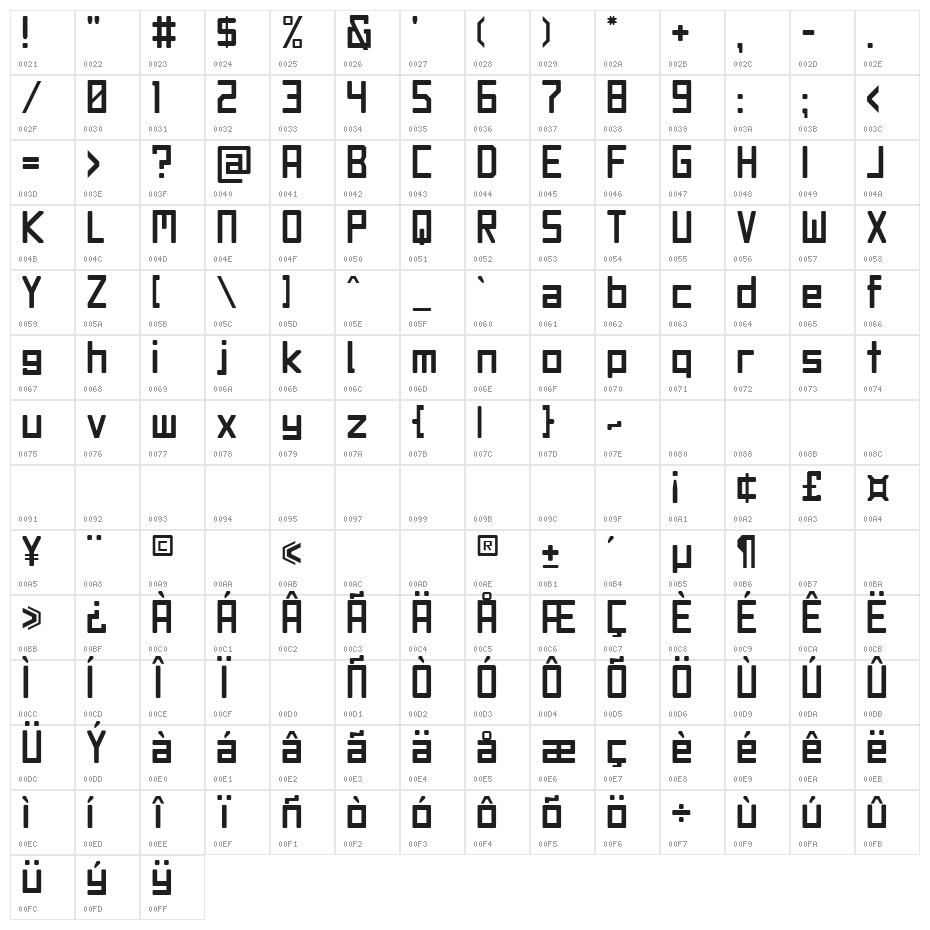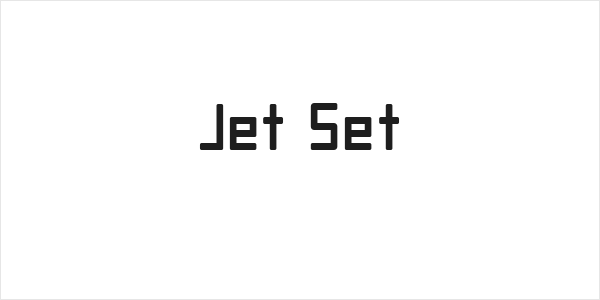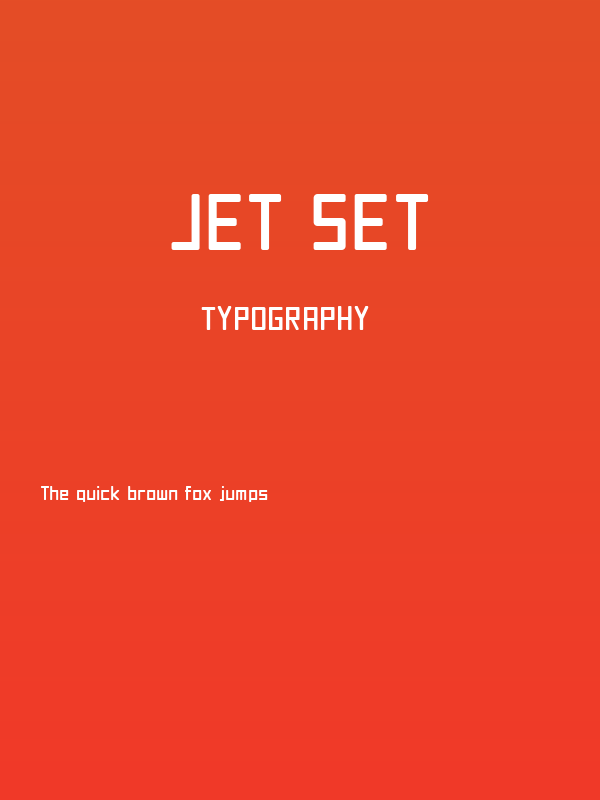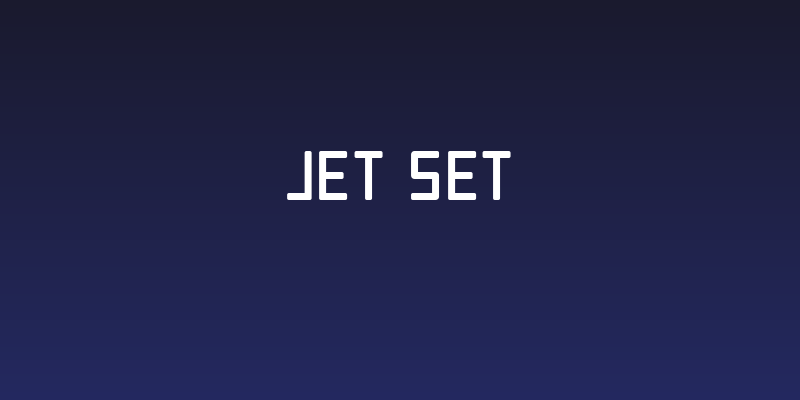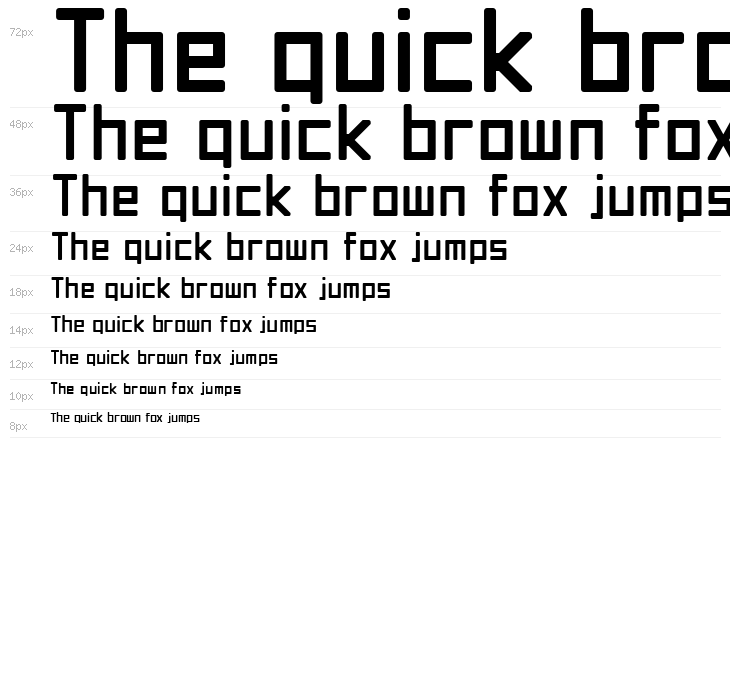
Jet Set Font
Jet Set Description
This font features a geometric and modern design, characterized by its clean lines and uniform stroke width. The uppercase and lowercase letters maintain a consistent height, creating a harmonious and balanced appearance. The numerals are distinct and easy to read, with a slightly futuristic feel. The special characters are well-integrated, matching the overall aesthetic of the font. Its structure is straightforward, making it suitable for a variety of applications where clarity and modernity are desired.
| Use Case | Headlines, Logos, Digital Interfaces |
| Proposed Projects | Ideal for tech branding, digital interfaces, modern posters, and futuristic designs. |